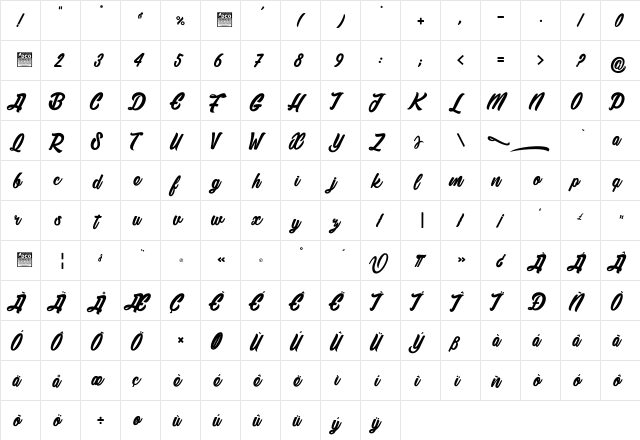
Historic Seattle_PersonalUseOnly Regular
Design Context for Historic Seattle_PersonalUseOnly Typeface
Historic Seattle_PersonalUseOnly is a composed and adaptable typeface that performs quietly and consistently across a wide range of design contexts.